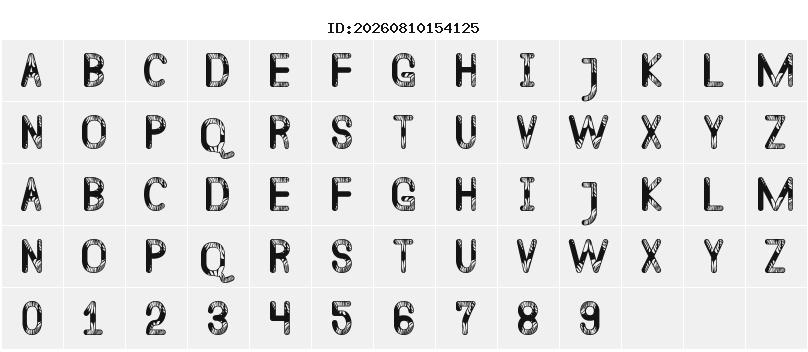
• Font Name: Quelentaro Wallmapu St
Quelentaro Wallmapu St.ttf is a modern, elegant sans-serif font designed for ultimate readability and visual harmony. Perfect for branding, headlines, web design, and print materials.